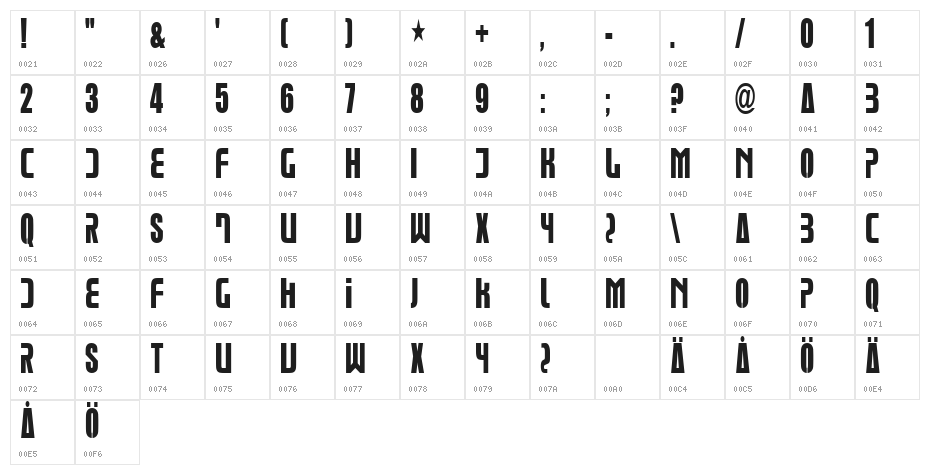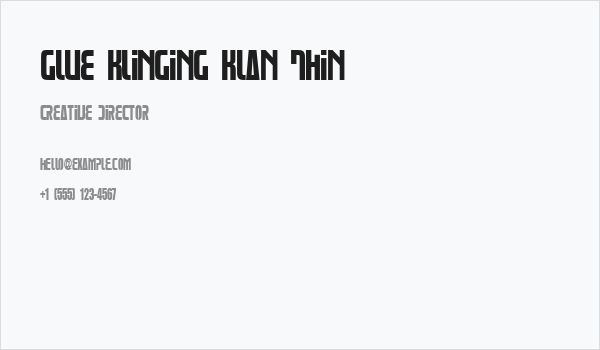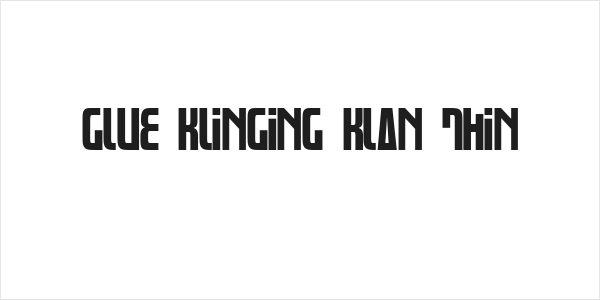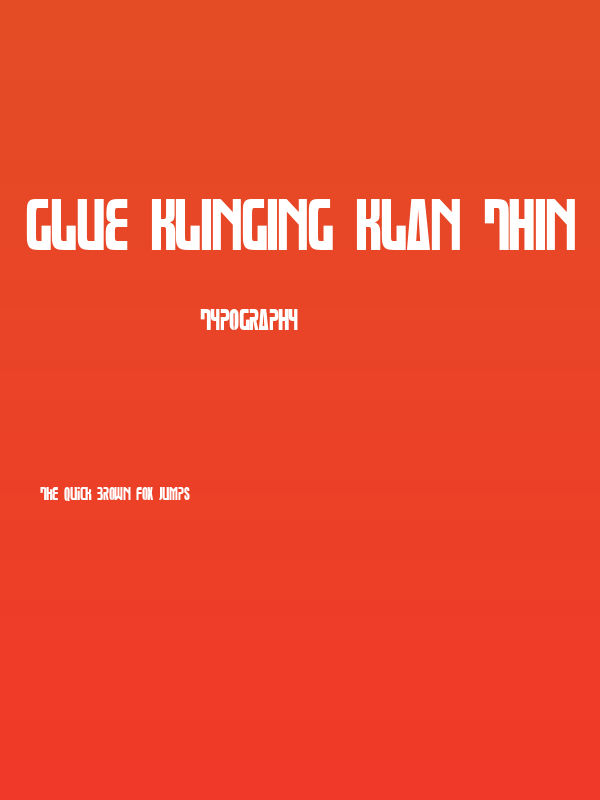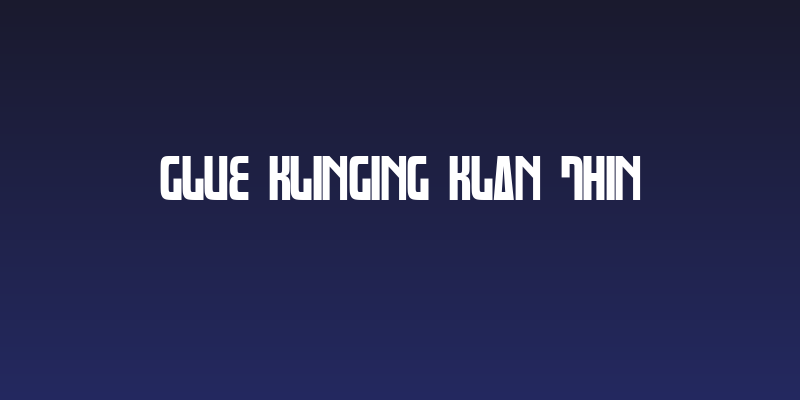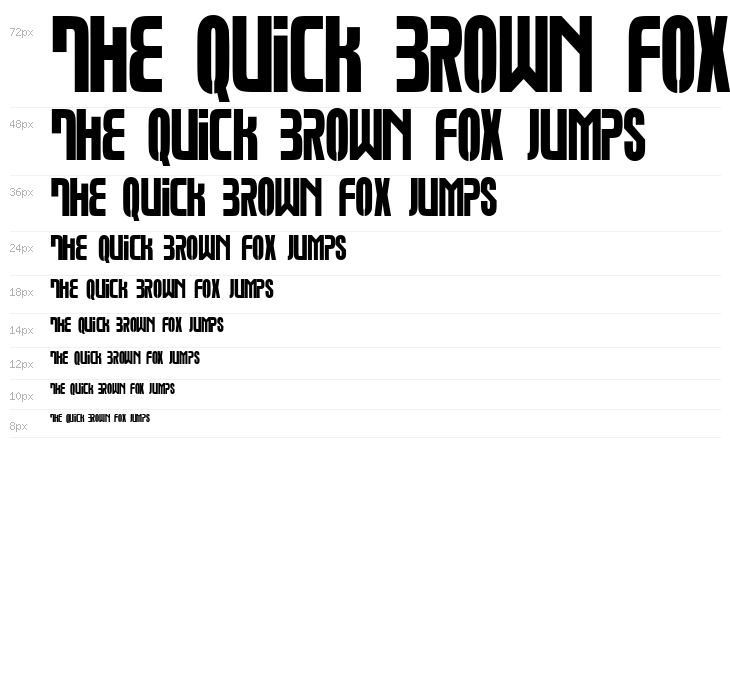
Glue Klinging Klan Thin Font
Glue Klinging Klan Thin Description
This font features a bold, geometric design with a strong presence. The characters are constructed with thick, uniform strokes, creating a robust and impactful appearance. The uppercase letters are particularly striking, with a block-like structure that emphasizes their boldness. The numbers and special characters maintain this consistent style, ensuring a cohesive look across all elements. The font's design is modern and assertive, making it ideal for projects that require a strong visual statement.
| Proposed Projects | Ideal for branding, posters, headlines, and any design requiring a bold statement. |